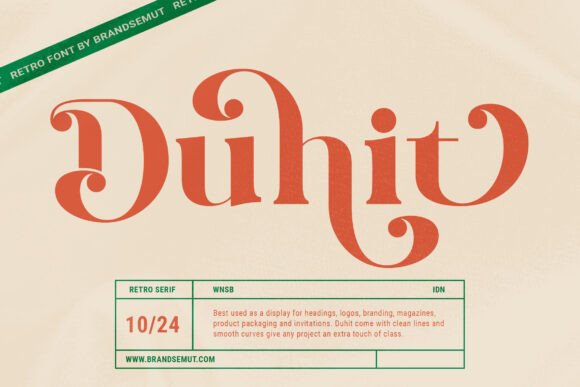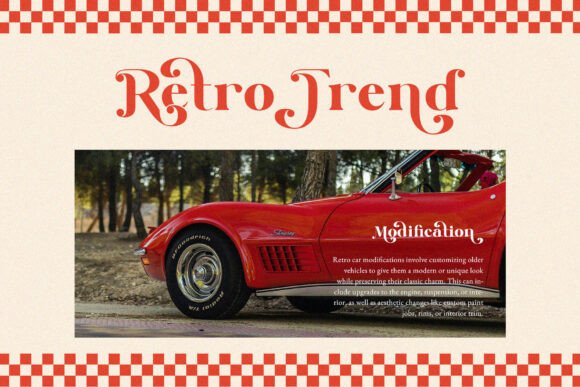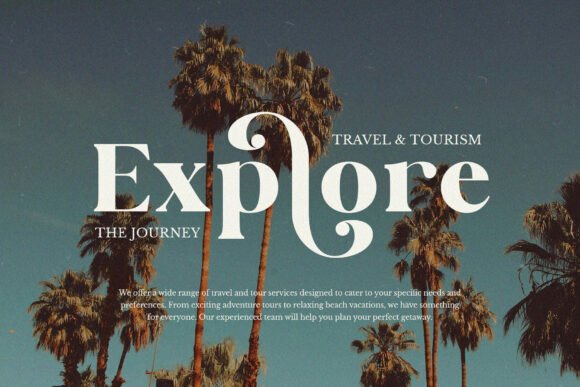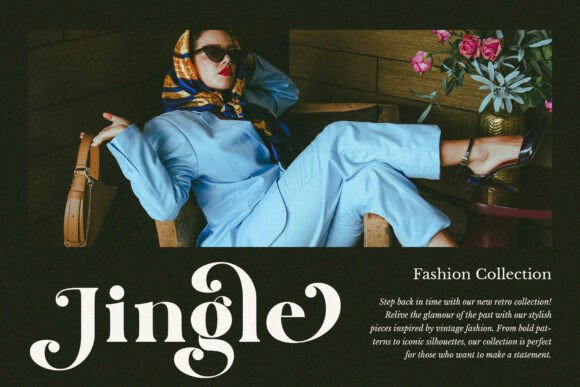
Duhit Font: Stylish Retro Serif for Branding & Logo Design
About the Duhit Font
The Duhit Font is here to transform your projects with its distinctive character and style. Introducing the new Duhit Retro Serif Font!! Duhit is a modern and retro serif font. Best used as a display for headings, logos, branding, magazines, product packaging, and invitations. Duhit comes with clean lines and smooth curves giving any project an extra touch of class. For those of you who need a touch of classic, stylish, classy, retro, and modernity for your designs, this font was created for you!
Duhit’s strong, yet refined, personality makes it ideal for headlines, logos, and short-form text in branding materials and packaging design. Its retro style lends itself well to projects with a vintage aesthetic or a need for a touch of nostalgic charm. However, its relatively high x-height and strong serifs make it less suitable for extended body text or UI applications where readability is paramount.
Consider pairing Duhit with a clean sans-serif like Montserrat for a balanced contrast, or a playful script font such as Pacifico for a more whimsical feel. For a more modern and sophisticated look, a geometric sans-serif such as Roboto would create a complementary pairing. These pairings will allow Duhit to shine as a statement font while maintaining visual harmony.
Its overall aesthetic is best described as sophisticatedly retro, balancing a bold presence with an elegant restraint. Brands targeting a discerning audience seeking quality and a hint of vintage appeal will find Duhit an excellent choice.
Duhit Font Usage Examples